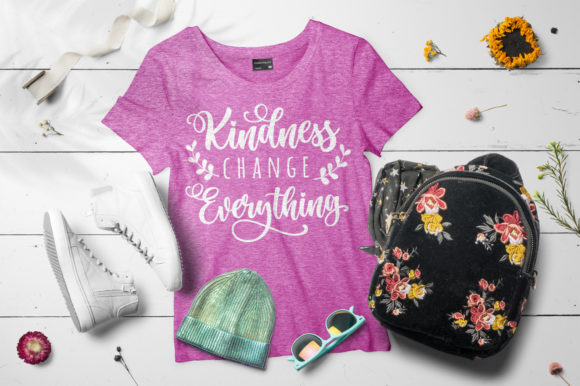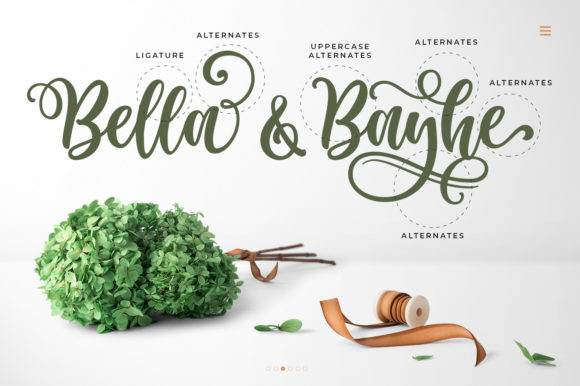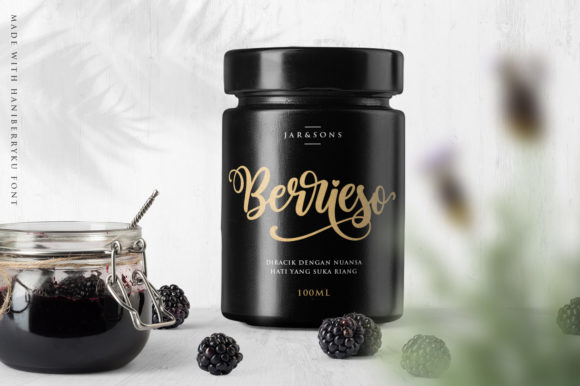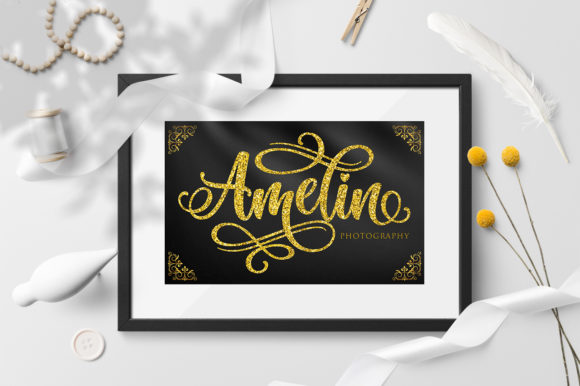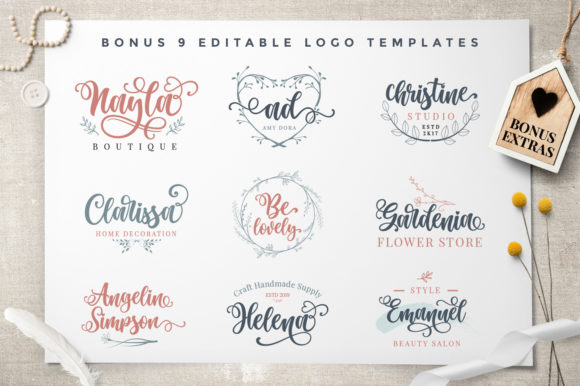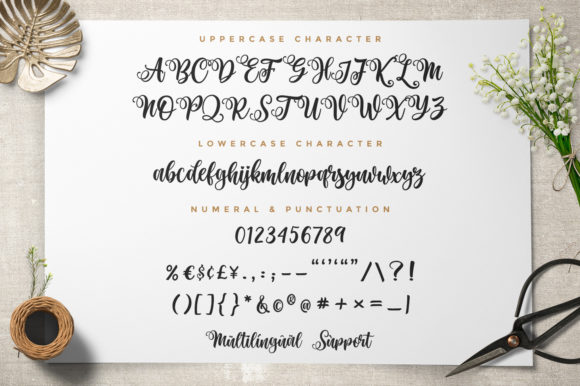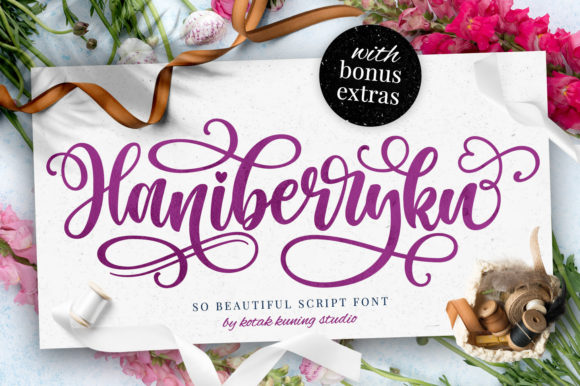
Introducing Haniberryku Font: Elevate Your Designs with a Touch of Elegance
Are you on the lookout for a font that adds a dash of romance and sophistication to your projects? Look no further than the Haniberryku Font! This beautiful script font boasts a natural and stylish flow, making it the perfect addition to your design toolkit. Whether you’re a seasoned designer or a crafter looking to add a personal touch to your creations, Haniberryku is sure to impress.
What Makes Haniberryku Font Special?
Haniberryku Font stands out from the crowd with its elegant and fluid script style. Its unique charm lies in its ability to bring a sense of warmth and personality to any design. Here are a few reasons why Haniberryku should be your go-to font for your next project:
- Natural Flow: The font’s design mimics natural handwriting, giving your text a personal and organic feel that resonates with readers.
- Stylish and Versatile: Haniberryku is not just limited to romantic designs. Its versatility allows it to be used in a wide range of projects, from party invitations to educational materials, and everything in between.
- Elegant and Sophisticated: Add a touch of elegance to your designs with Haniberryku’s sophisticated script. It’s perfect for creating stunning visual content that stands out.
How to Use Haniberryku Font in Your Projects
Haniberryku Font is incredibly easy to use and can be incorporated into various types of projects. Here are some ideas to get you started:
- Party Invitations and Decor: Use Haniberryku to create beautiful party invitations, banners, and decorations that set the tone for a memorable event.
- Personalized Gifts: Add a personal touch to trinket dishes, bookmarks, and other DIY crafts with Haniberryku. It’s a great way to make gifts more special and meaningful.
- Educational Materials: Create engaging and visually appealing educational content, such as worksheets, certificates, and classroom decorations, with a touch of elegance.
Tips for Getting the Most Out of Haniberryku Font
To truly leverage the beauty of Haniberryku Font, consider the following tips:
- Experiment with Colors: Haniberryku looks great in various colors. Don’t be afraid to experiment with different hues to find the perfect match for your project.
- Mix and Match Fonts: Combine Haniberryku with other fonts to create visually appealing text combinations. Its script style pairs well with many sans-serif and serif fonts.
- Pay Attention to Spacing: Adjust the spacing between letters and lines to enhance readability and aesthetic appeal.
| Font Name | Haniberryku Font |
| Author | Kotak Kuning Studio |
Haniberryku Font is more than just a script font; it’s a tool that can elevate your designs and add a touch of romance and elegance to your projects. Whether you’re a designer looking to expand your font collection or a crafter aiming to personalize your creations, Haniberryku is an excellent choice. Explore its potential by incorporating it into your next project or by checking out the Creative Factory classes where it’s featured. Get creative with Haniberryku and watch your designs come to life!